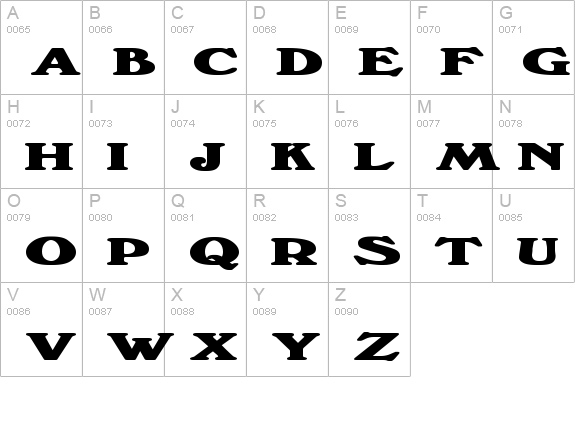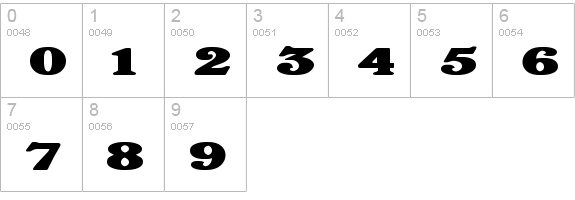
WindsorDemi.fog Ex Bold Font Details
WindsorDemi.fog Ex Bold is a strong, high-contrast variant in the WindsorDemi.fog typeface family \xE2\x80\x94 well suited to headlines, attention-grabbing titles, and strong calls-to-action.